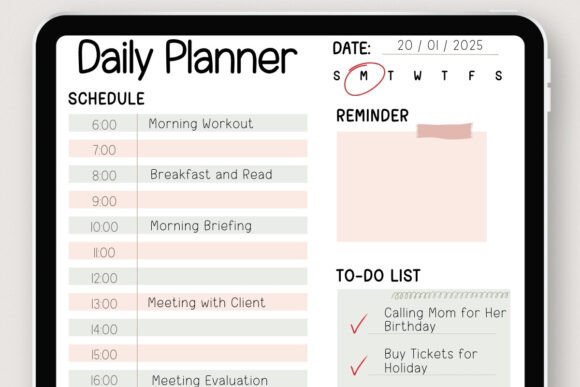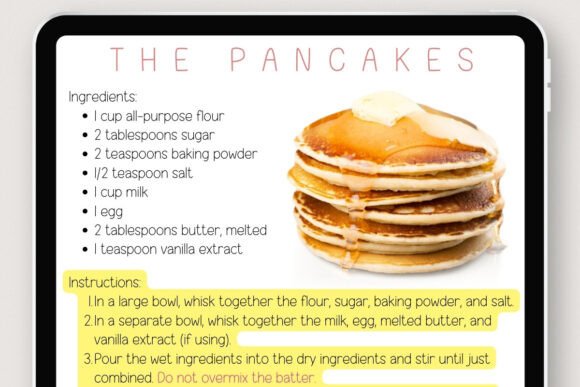
Nice to Meet U Font
Nice to Meet U is a fun and cute handwriting font designed to make your school notes, digital planners, and creative projects stand out! Its playful and neat style makes it perfect for students, crafters, and digital enthusiasts who want to add a cheerful touch to their designs.Whether you’re organizing your school notes, creating digital planners on GoodNotes, or designing projects in Canva and Procreate, Nice to Meet U is a versatile and charming choice.